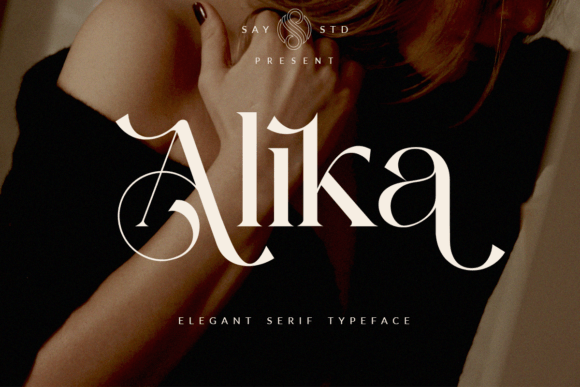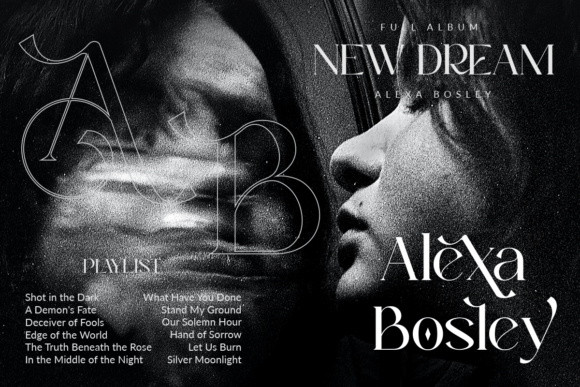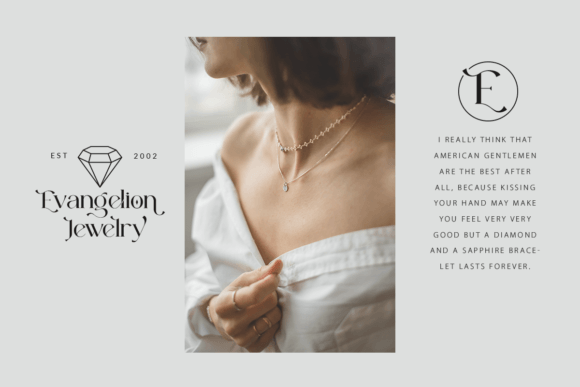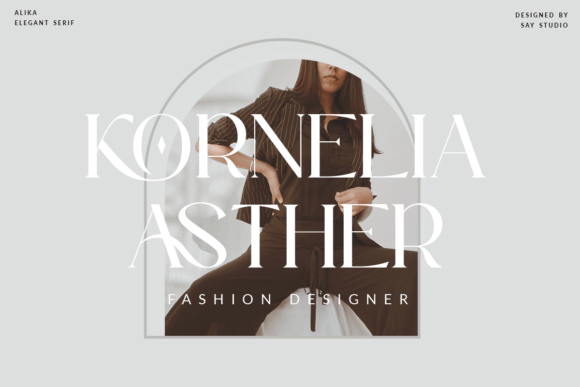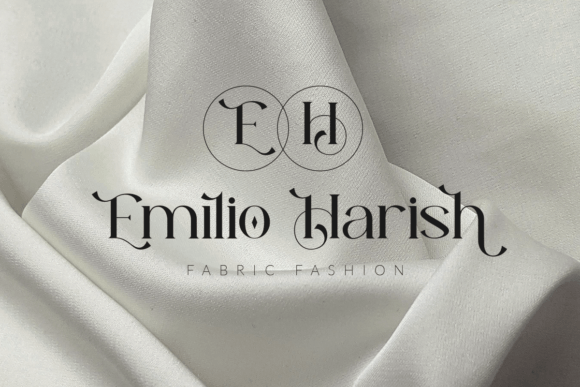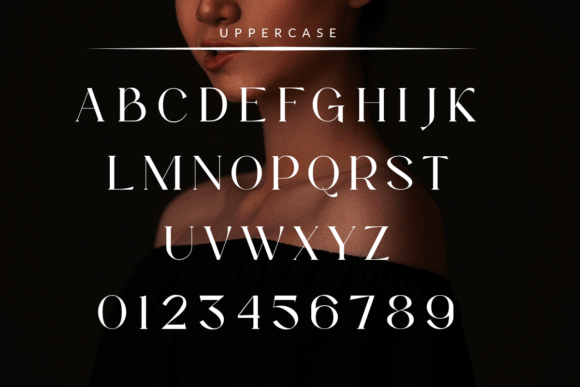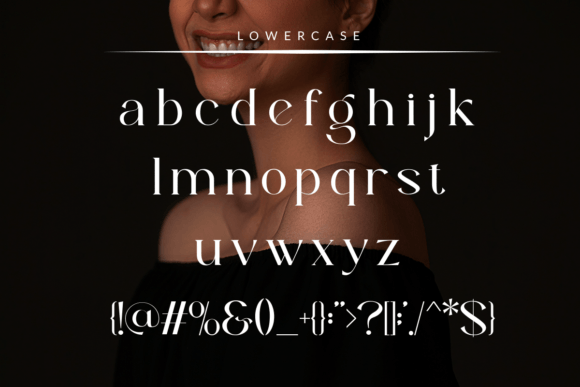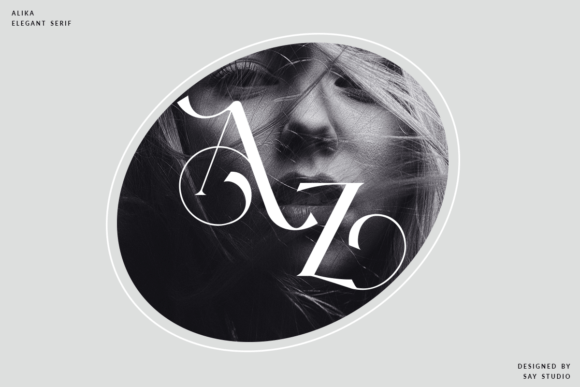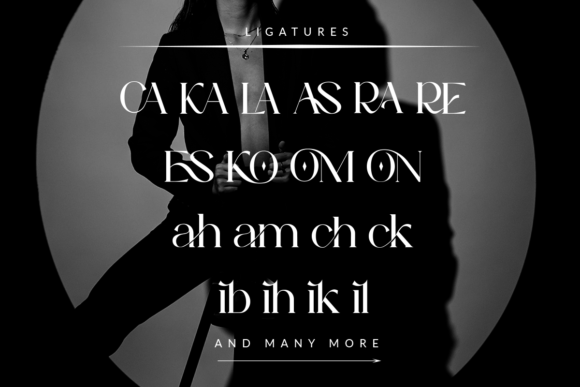
Alika Font
This elegant and chic serif font embodies a refined sense of style and grace. Alika’s clean, unadorned lines and subtle serifs create a classic and timeless look that is both sophisticated and understated. Ideal for conveying a sense of luxury and prestige in high-end branding, editorial design, and other premium applications. Keep in mind that the font is PUA encoded, meaning that you can access all delightful glyphs and swashes effortlessly.